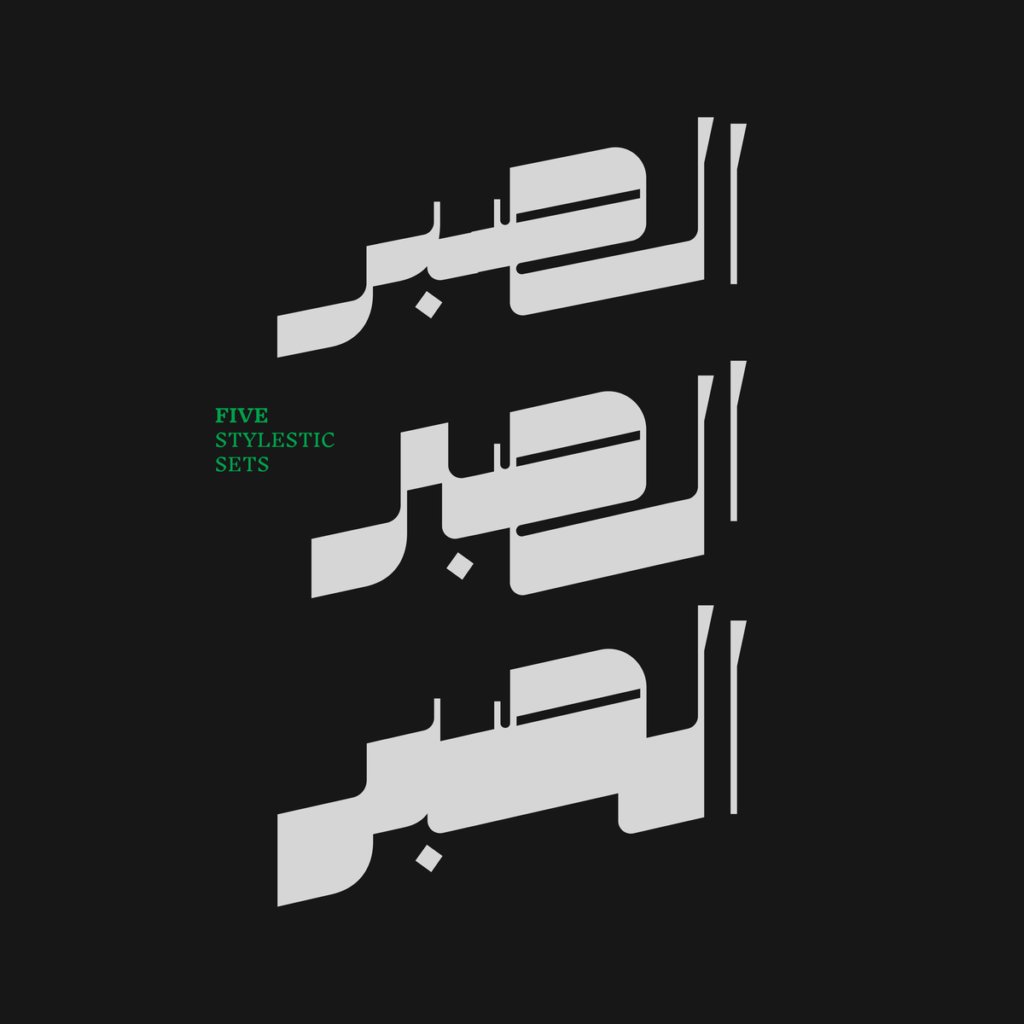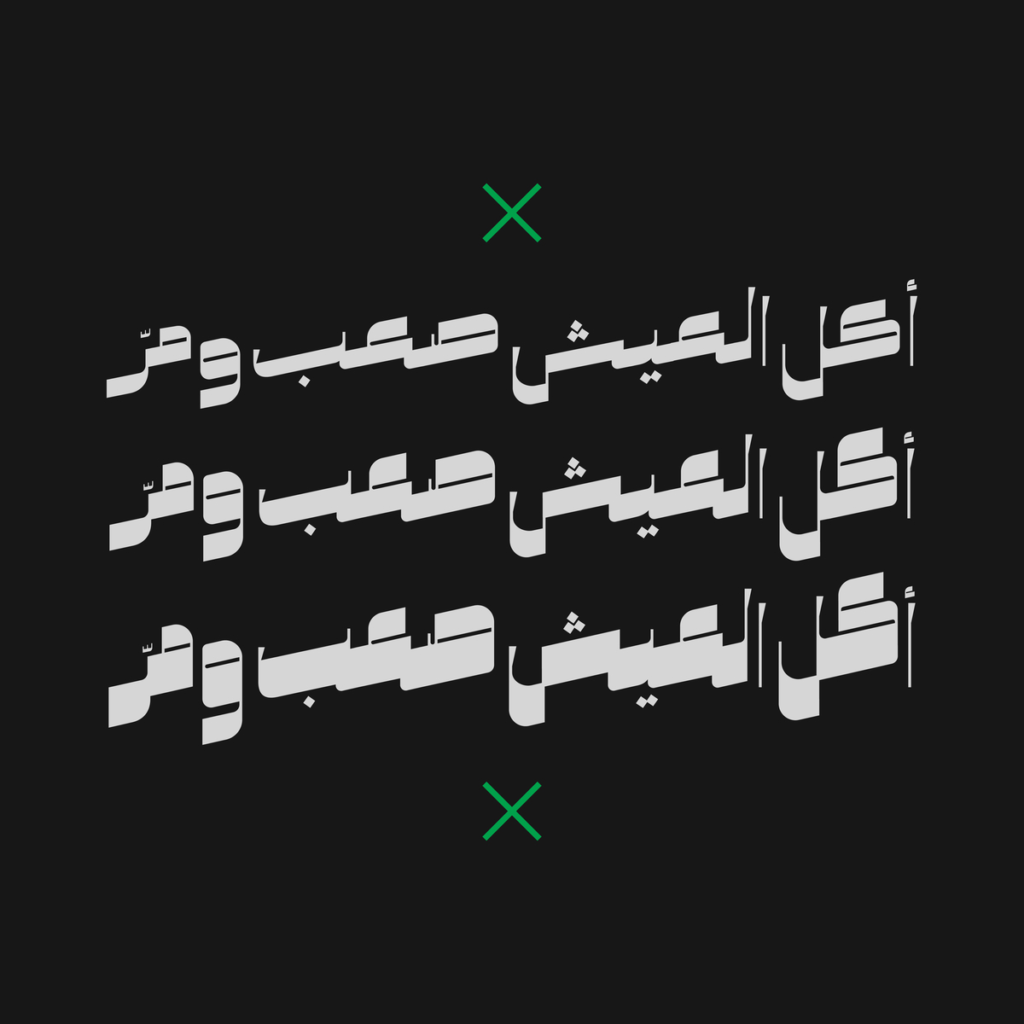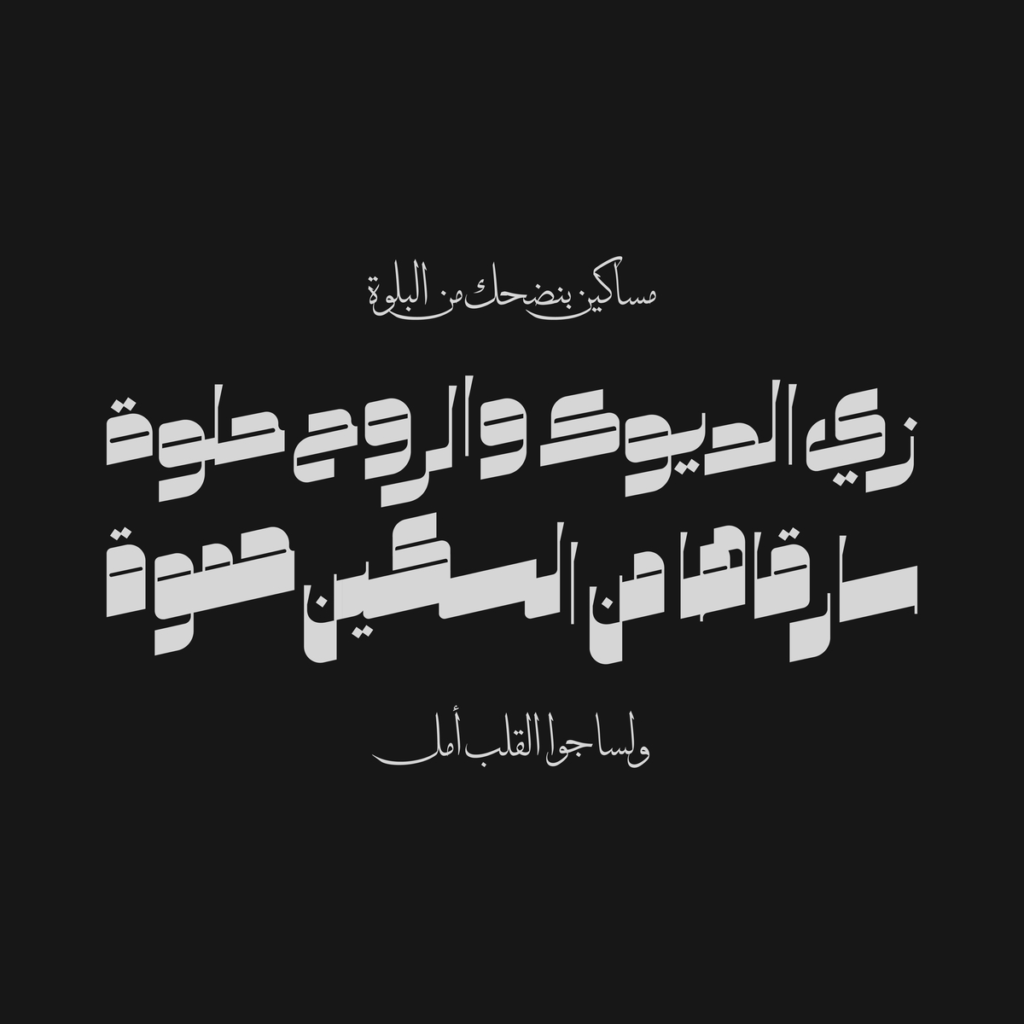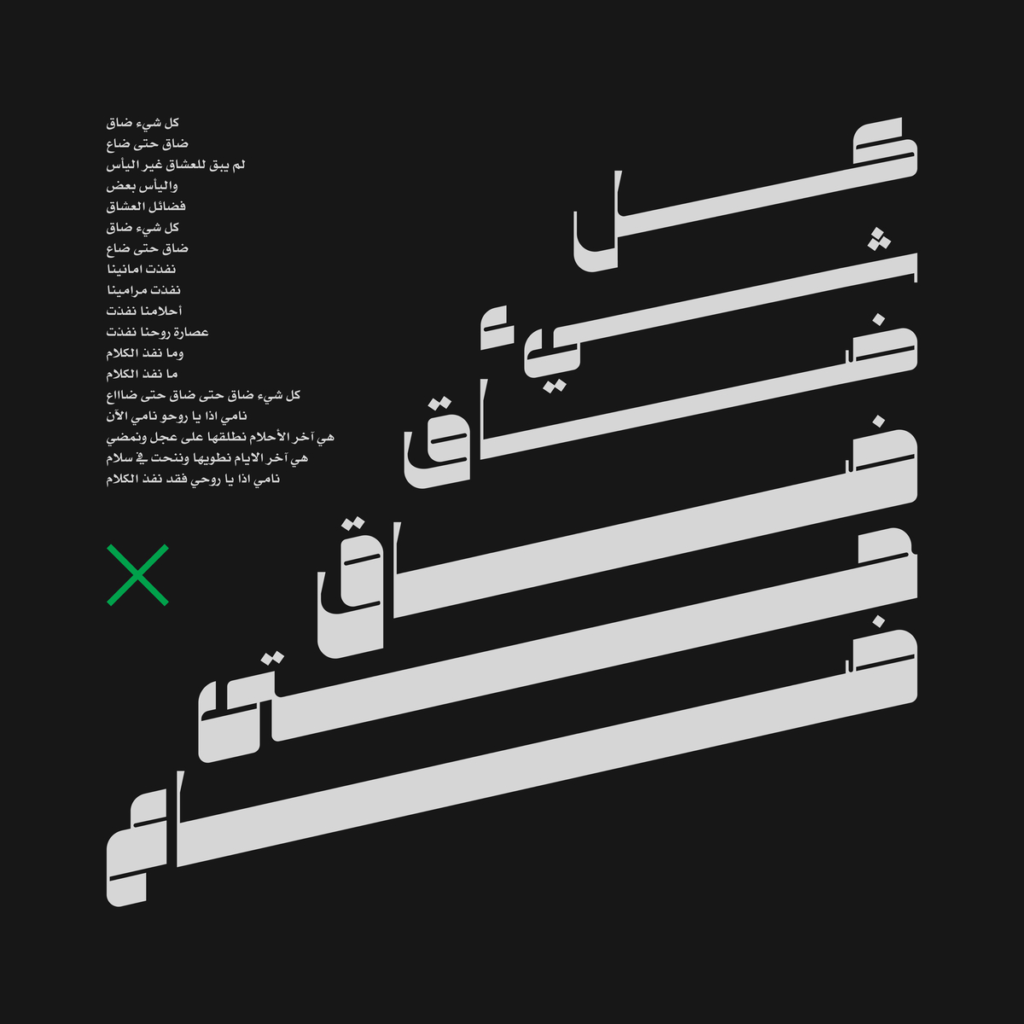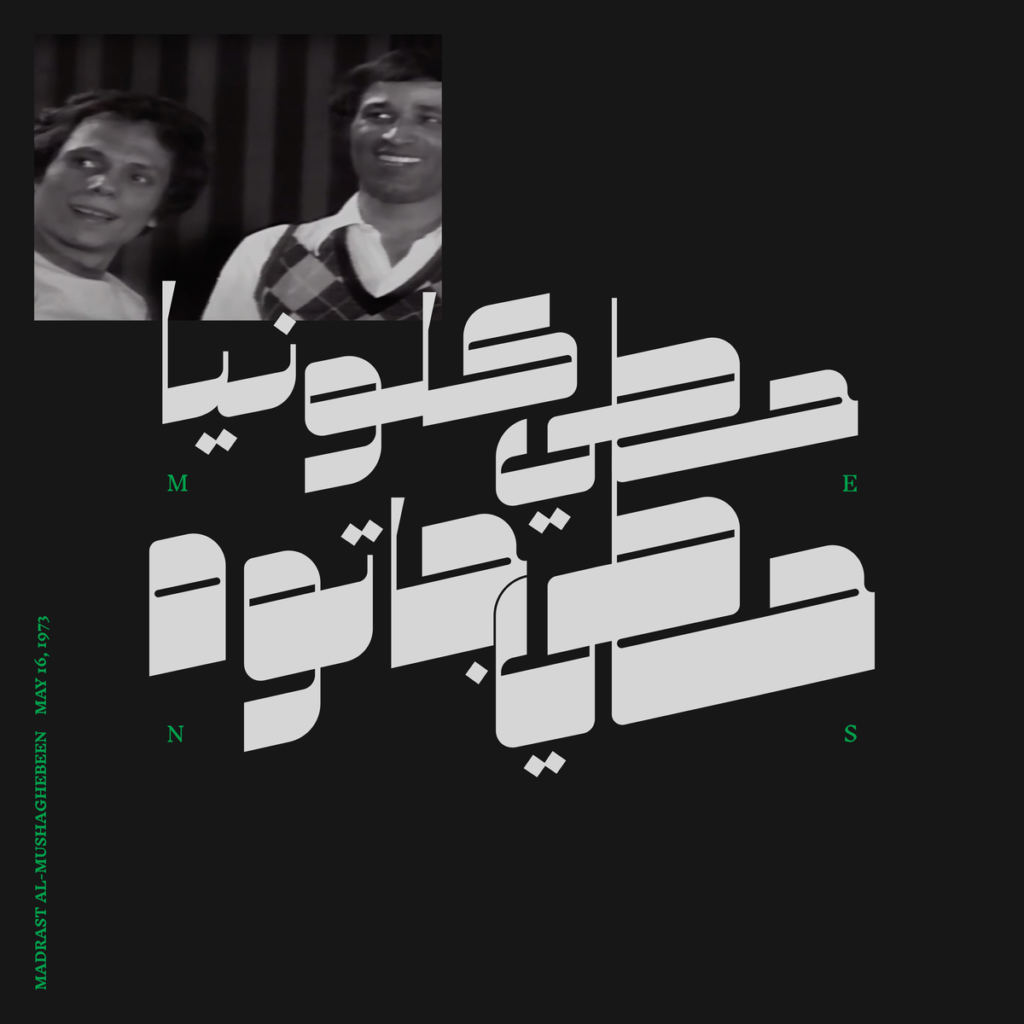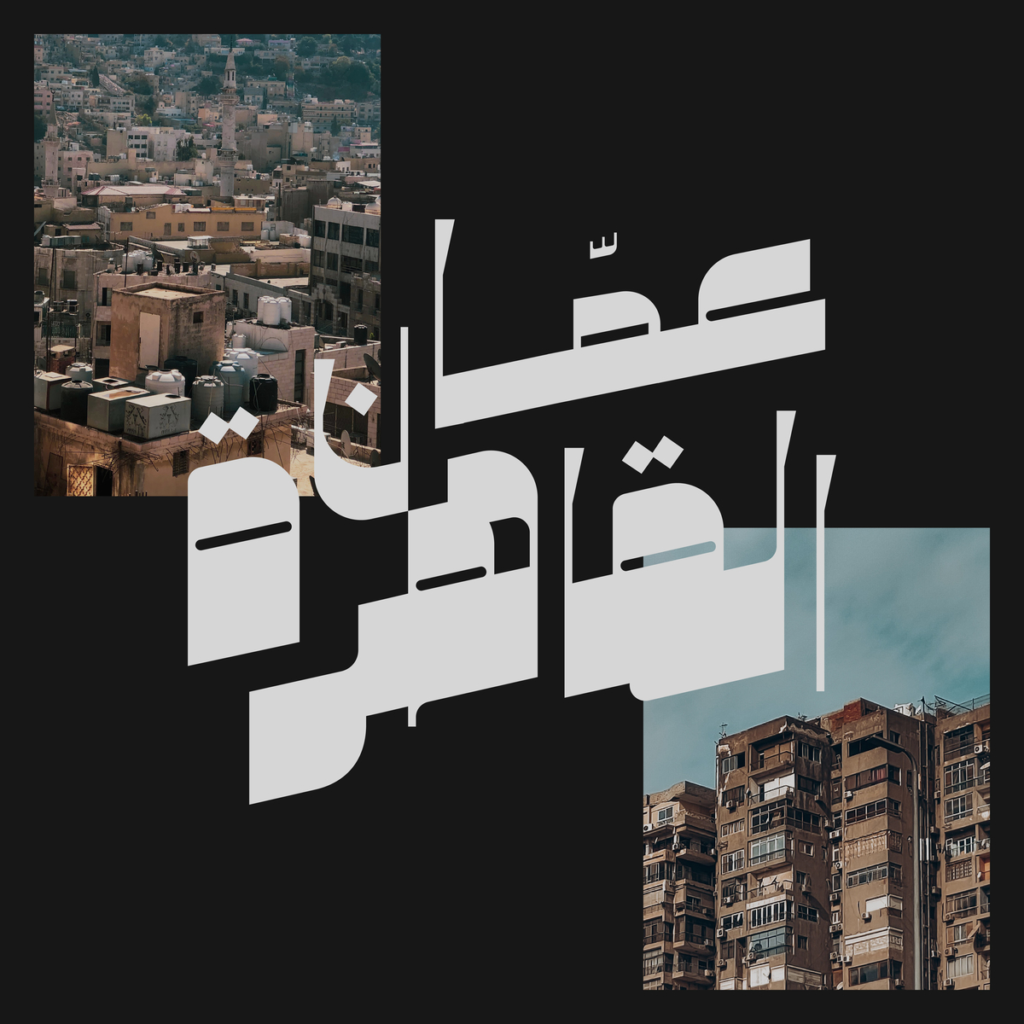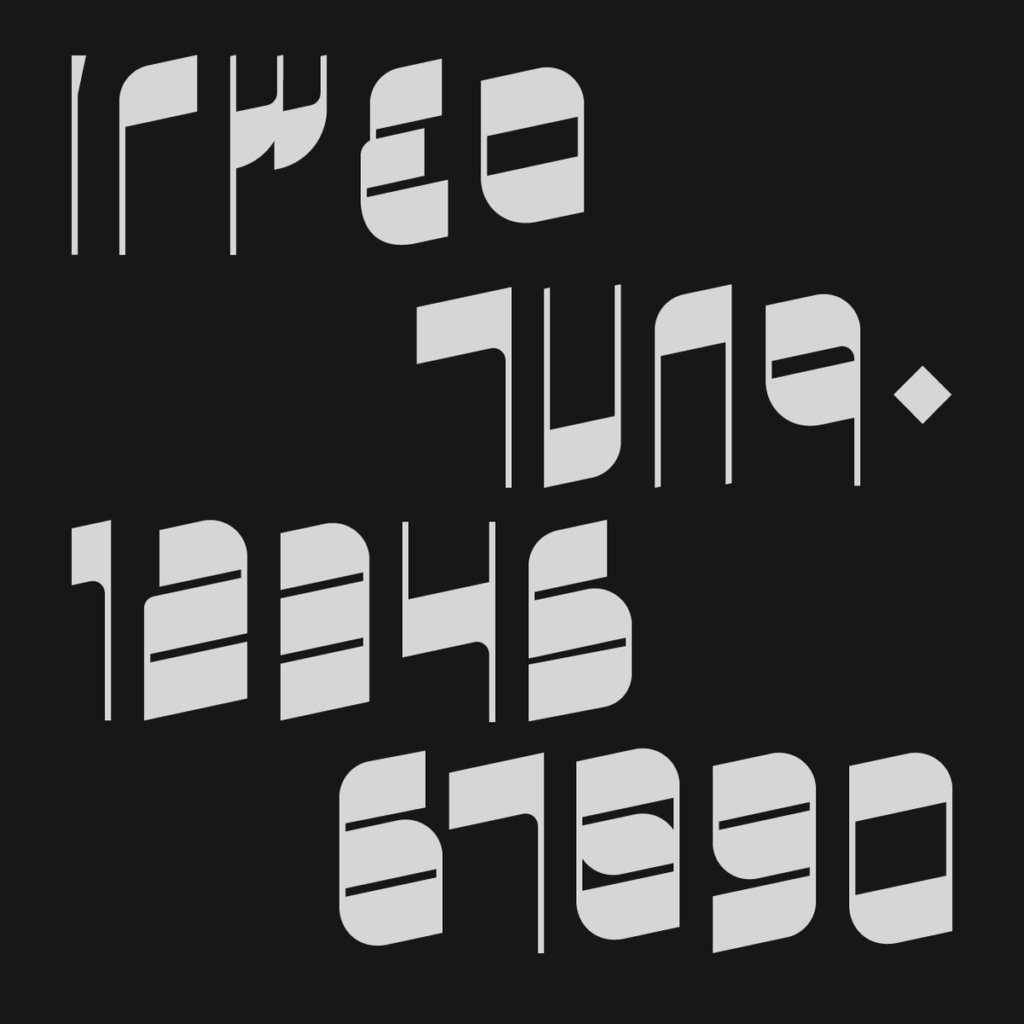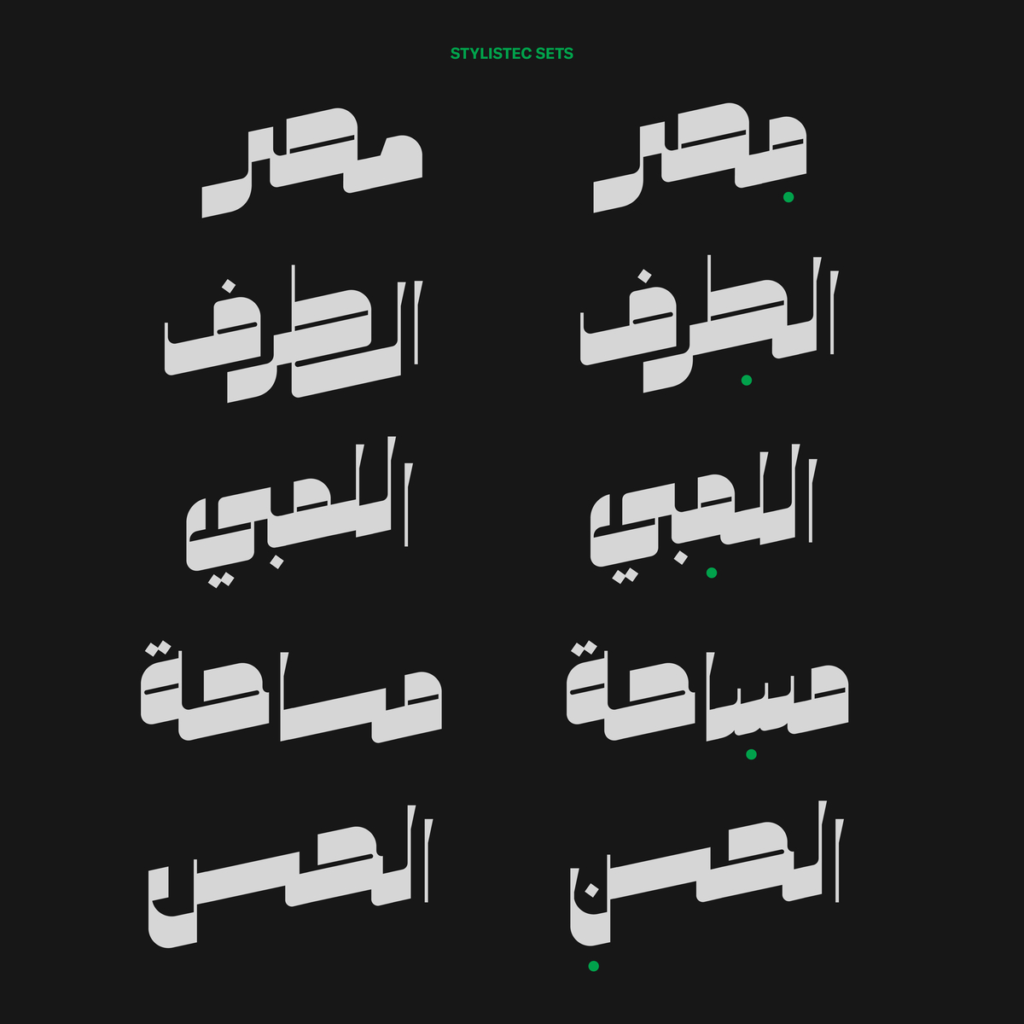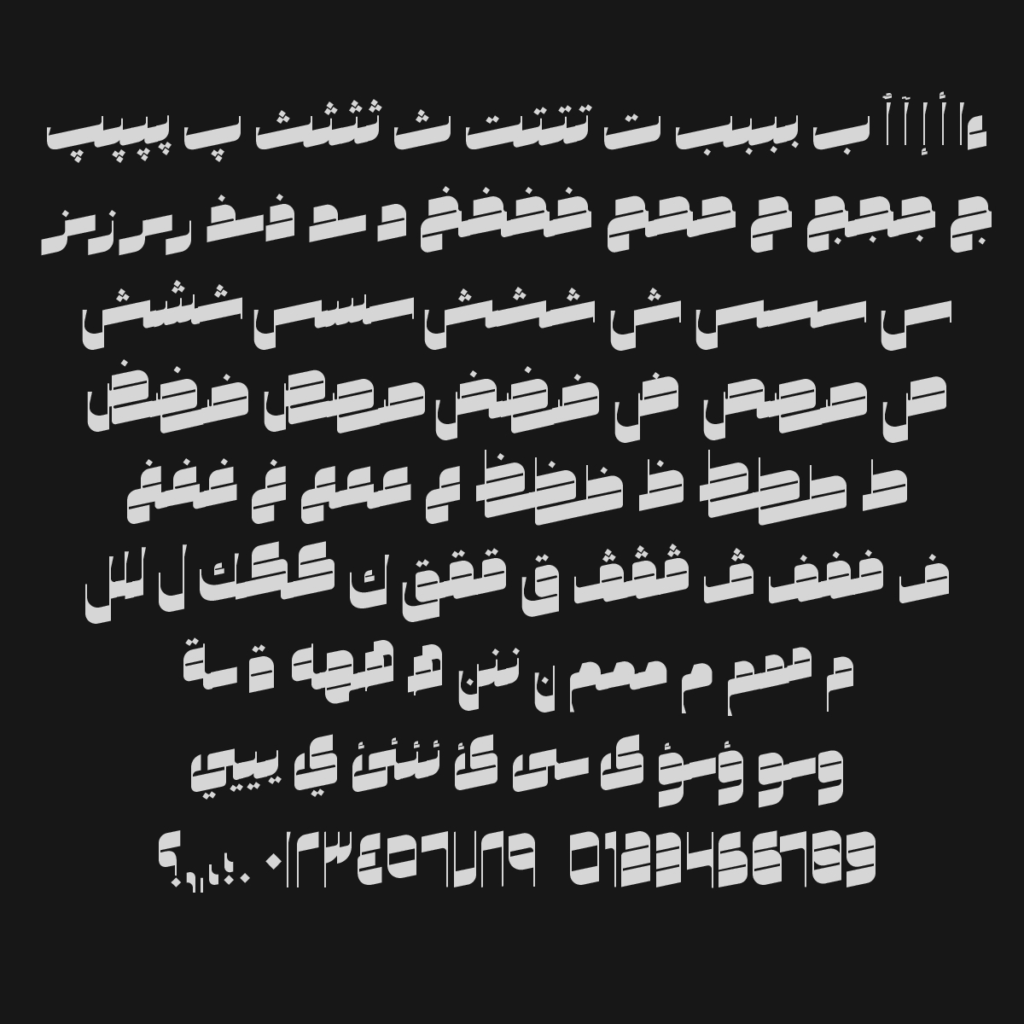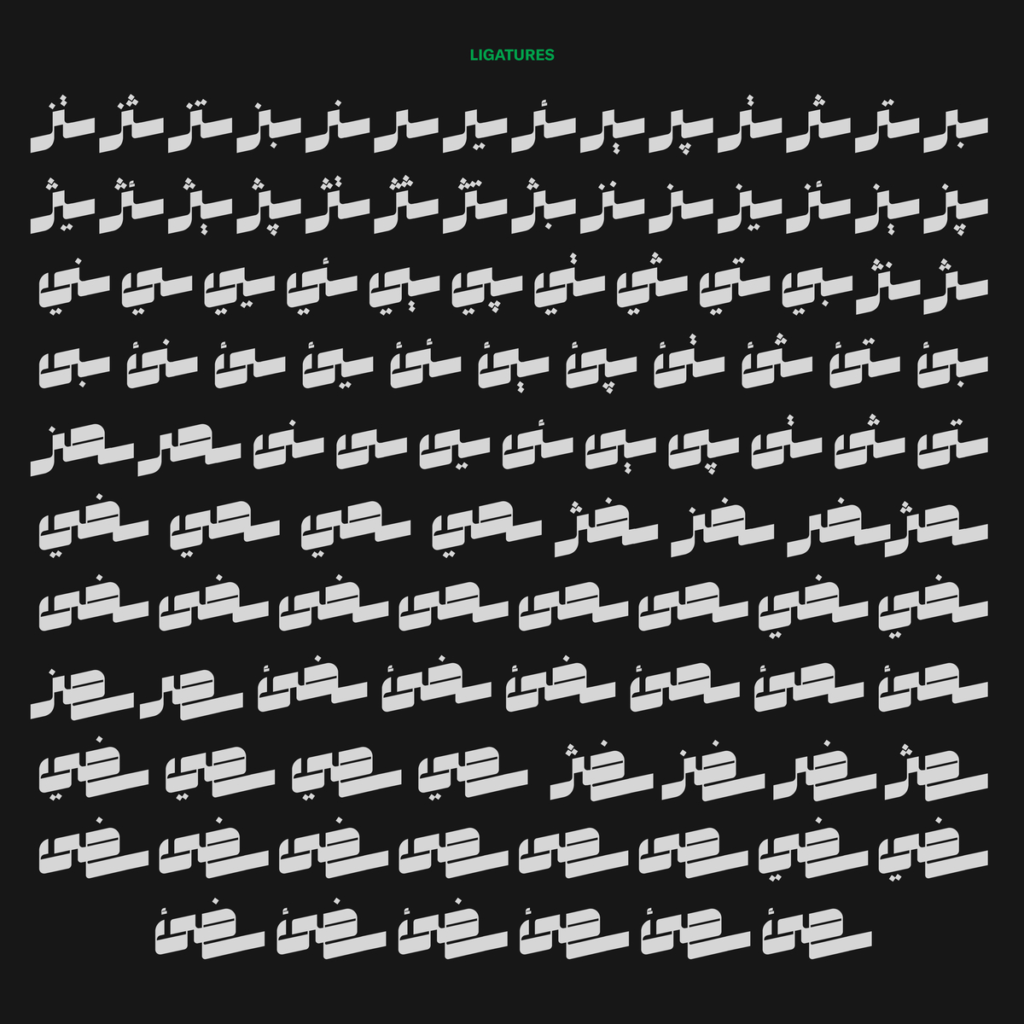
Zaatar Arabic Font
Zaatar is a thoughtfully crafted Arabic typeface that brings modern sensibility to traditional letterforms. With its clean, contemporary design, this font offers artists and designers a versatile tool for creating work that feels current and distinctive while maintaining excellent readability.
Design Characteristics:
- Modern, contemporary Arabic design
- Clean, distinctive letterforms
- Fresh, unique typographic voice
- Balanced proportions for versatility
- Artistic appeal with professional quality
Arabic Script:
- Complete Arabic character set
- Full support for diacritics and marks
- Proper character connections and positioning
- Modern styling across all letters
- Optimized for creative applications
- Graphic Design: Posters, brochures, branding
- Printing: Books, magazines, flyers, stationery
- Art Projects: Creative works needing unique typography
- Logos: Fresh, memorable brand identities
- Social Media: Contemporary, engaging content
- Packaging: Modern product presentation
- Editorial Design: Publications with current style
- Art Prints: Decorative typographic artwork
- Creative Headlines: Attention-grabbing titles
- Modern Design: Fresh, contemporary character
- Unique Voice: Distinctive typographic personality
- Versatile Application: Perfect for creative projects
Key Features of Zaatar Font:
- Modern, contemporary Arabic design
- Complete Arabic character set
- Fresh, distinctive letterforms
- Perfect for graphic design, printing, and art
- Graphic designers seeking modern Arabic typography
- Print and publication designers
- Artists and creative professionals
- Brand and logo creators
- Anyone needing fresh, contemporary Arabic fonts
Zaatar is a dynamic Arabic typeface abstracted from a mixture of Arabic Ruq’ah and Nastaliq, the slanted baseline with a geometrical contemporary touch, manifest a strong contrast between thick and thin strokes, present a retro-futuristic impression yet an Arabic calligraphic seriousness. and it comes with five stylistic sets giving it a variety of typograph…